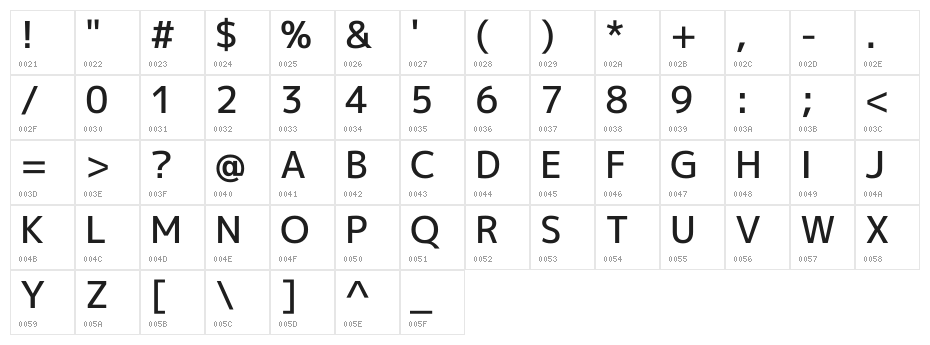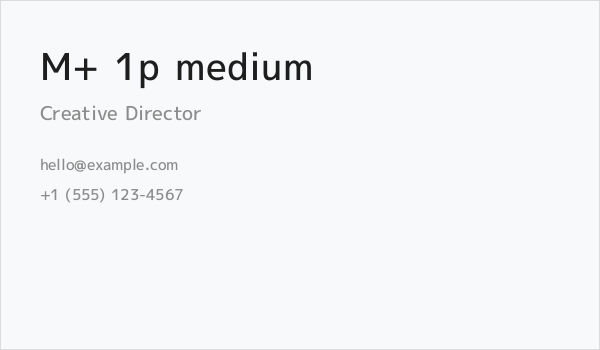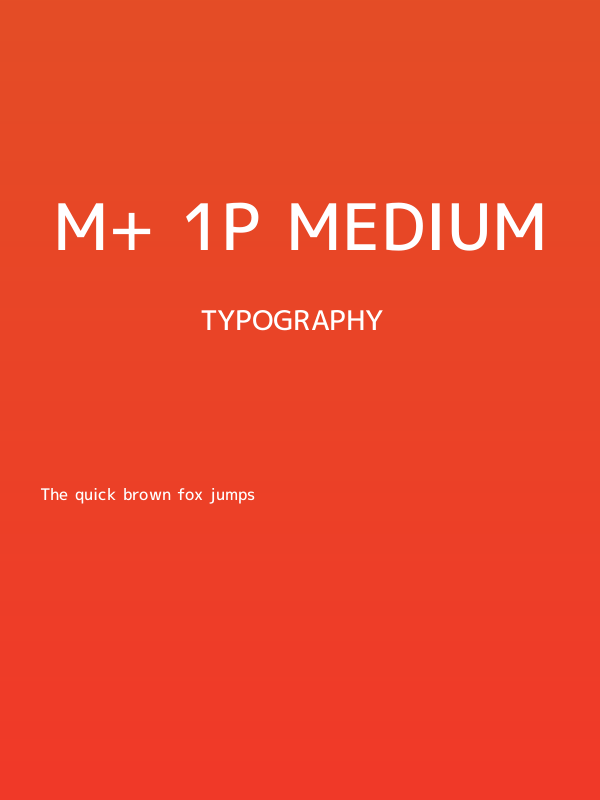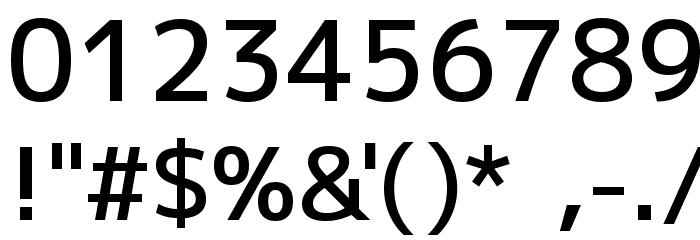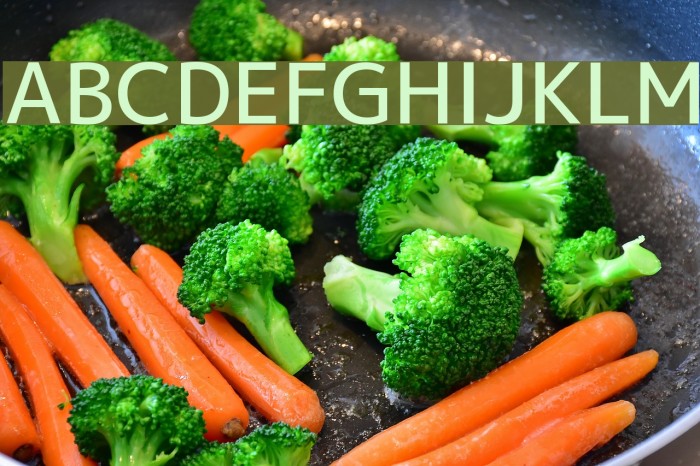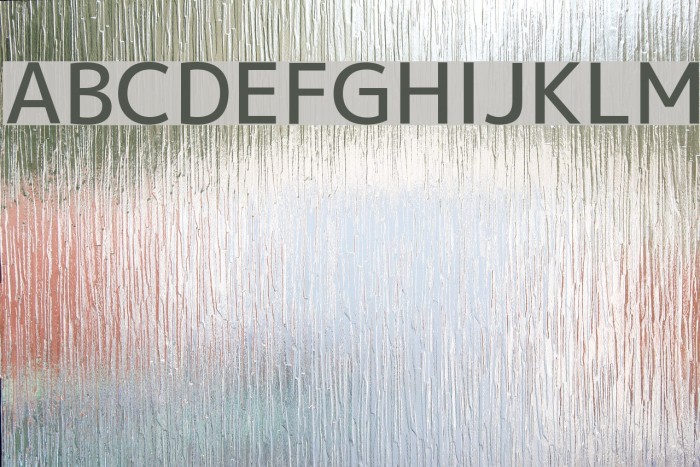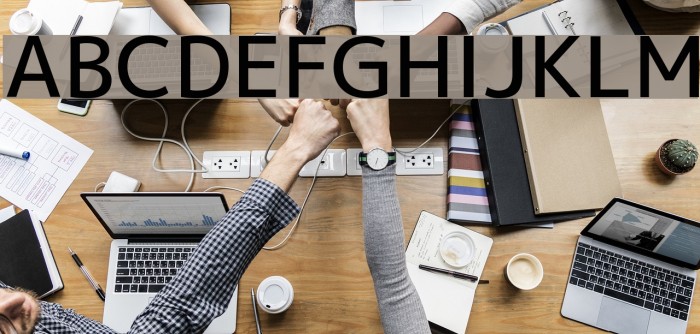
M+ 1p medium Font
M+ 1p medium Description
This typeface features a clean and modern sans-serif design, characterized by its geometric shapes and uniform stroke widths. The uppercase letters are bold and assertive, while the lowercase letters maintain a consistent height, offering a harmonious balance. The numerals are clear and easily distinguishable, making them suitable for various applications. Special characters are well-defined, enhancing the font's versatility. Its simplicity and clarity make it ideal for digital and print media, ensuring readability across different sizes and formats.